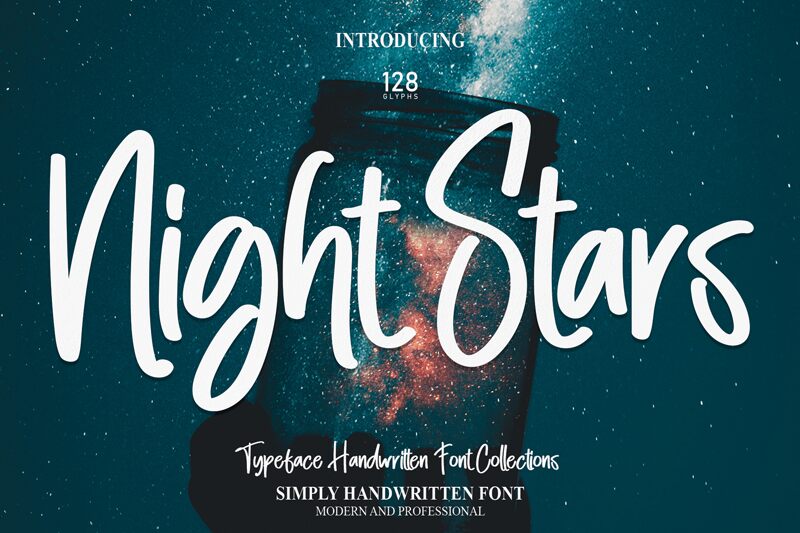
Night Stars
Night Stars is a captivating handwritten font designed by scratchones. With its semi-light weight and semi-condensed width, this font exudes elegance and sophistication. Perfect for projects that require a touch of uniqueness, Night Stars is an ideal choice for wedding invitations, greeting cards, and stylish branding materials. Its graceful curves and enchanting strokes will add a magical touch to any design, making it suitable for fantasy book covers or whimsical posters. Let Night Stars light up your creativity and bring a celestial charm to your next project.
The latest style letters are perfect for wall displays, wedding invitations, social media post logos, advertisements, product packaging, product designs, labels, photography, watermarks, invitations, stationery, and any project that requires taste handwriting.